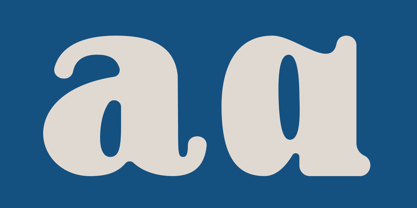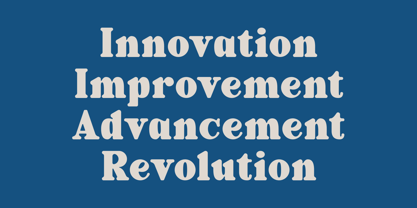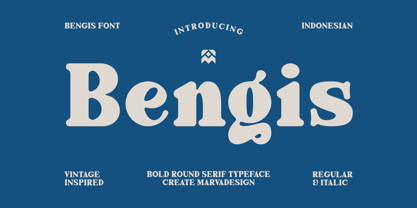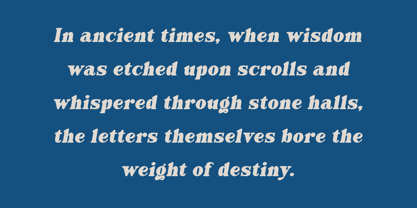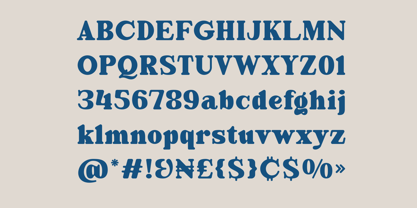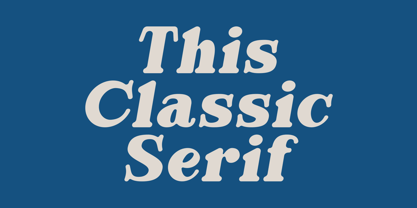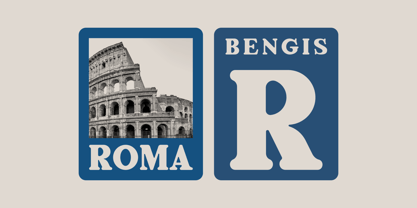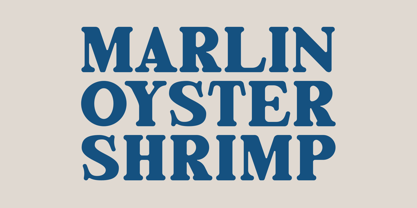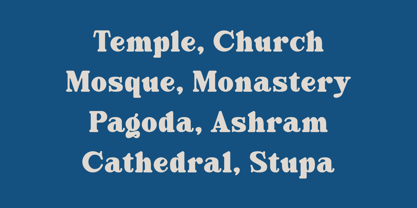
Bengis
by Marvadesign
The Bengis Font Family was designed by Febrie Setiawan and published by Marvadesign. Bengis contains 2 styles and family package options. More about this family
Bengis is a bold round serif typeface that combines a vintage-inspired charm with modern versatility. Its strong, rounded serifs and smooth curves give it a distinctive personality, balancing playfulness with a classic touch. Designed with both regular and italic styles, Bengis offers flexibility for a wide range of design needs from branding and editorial layouts to posters and packaging. The typeface emphasizes readability while maintaining unique details, such as rounded terminals and subtle decorative elements, making it stand out in headlines and display use.
Designers: Febrie Setiawan
Foundry: Marvadesign